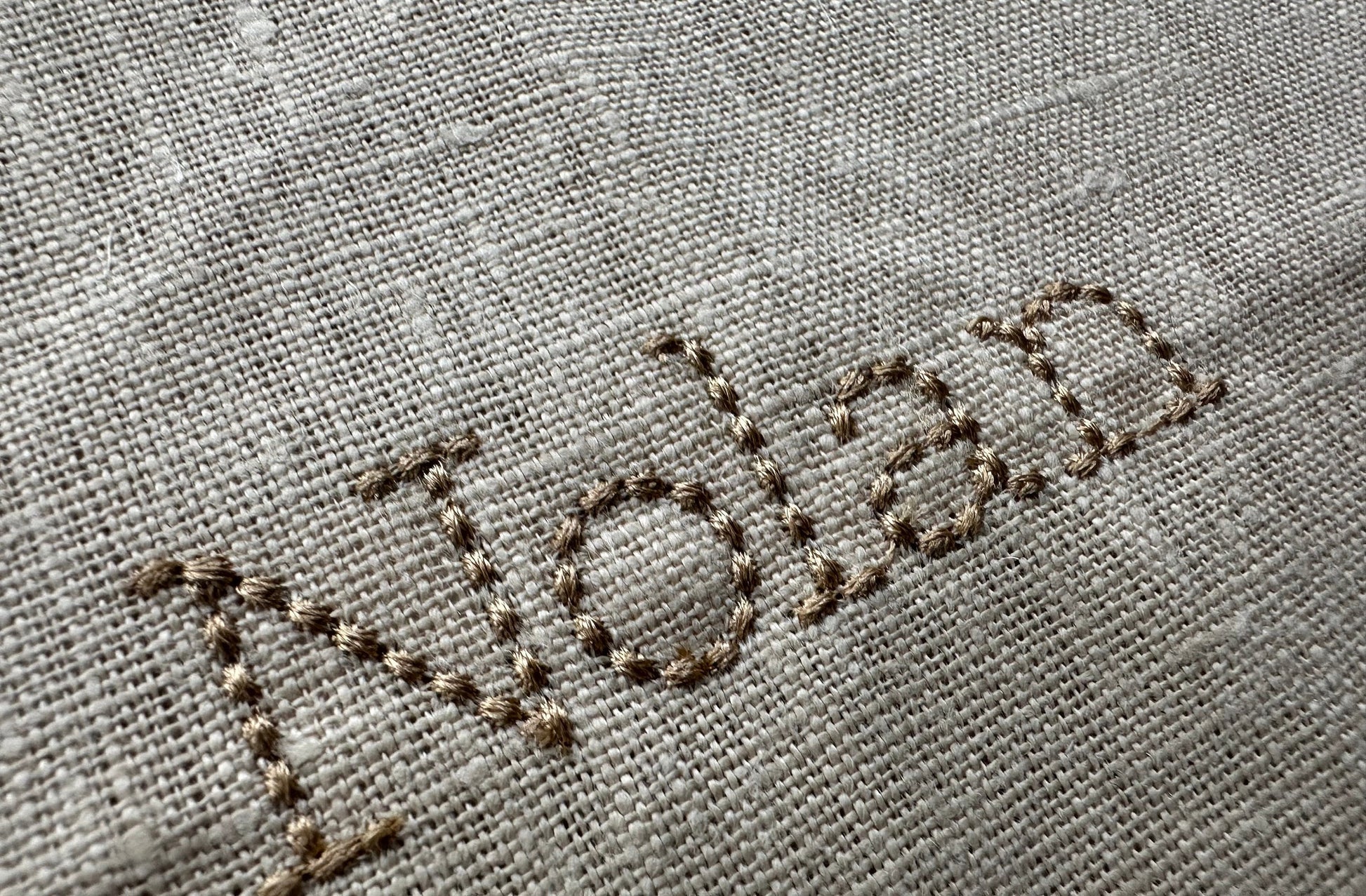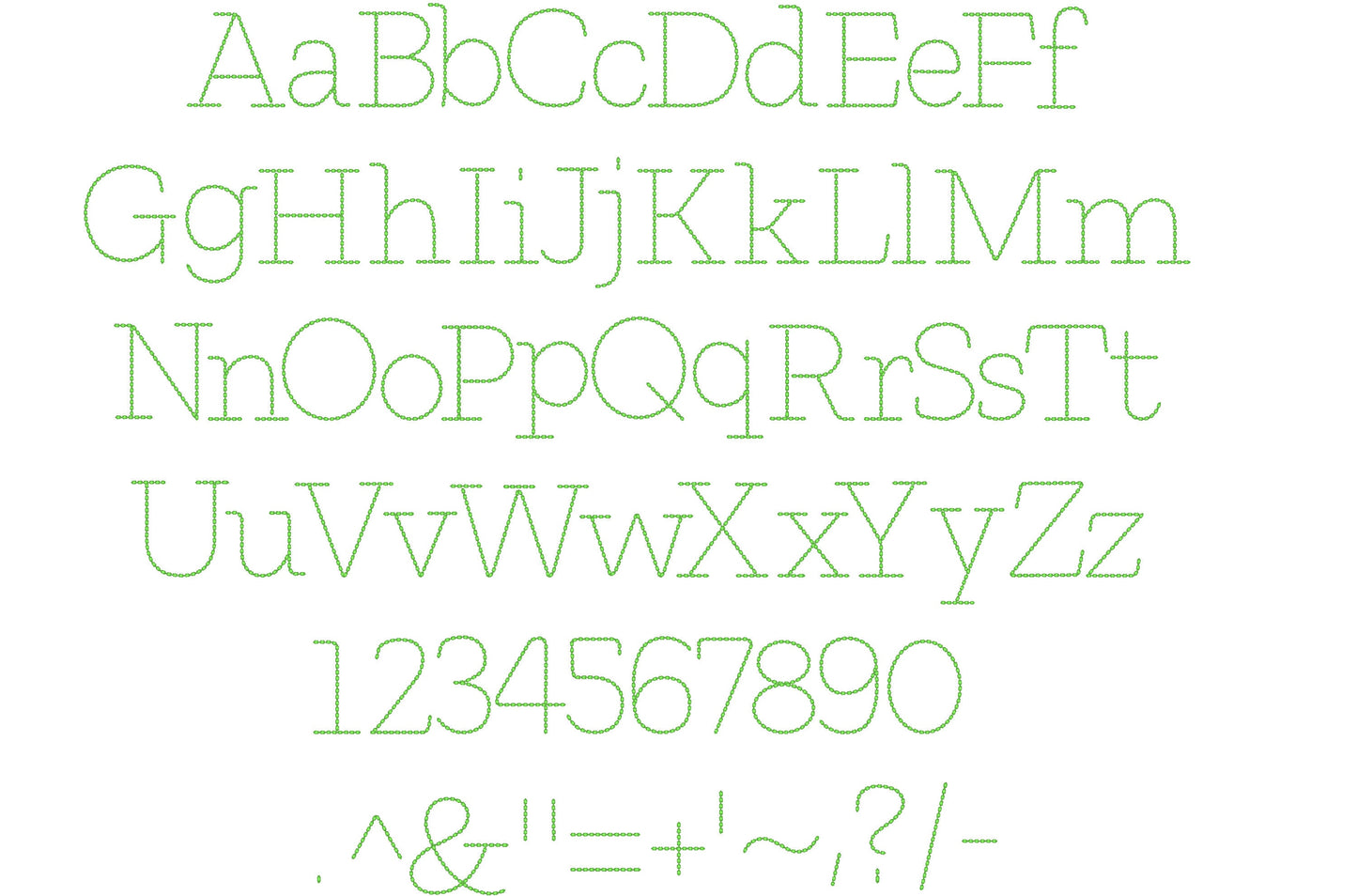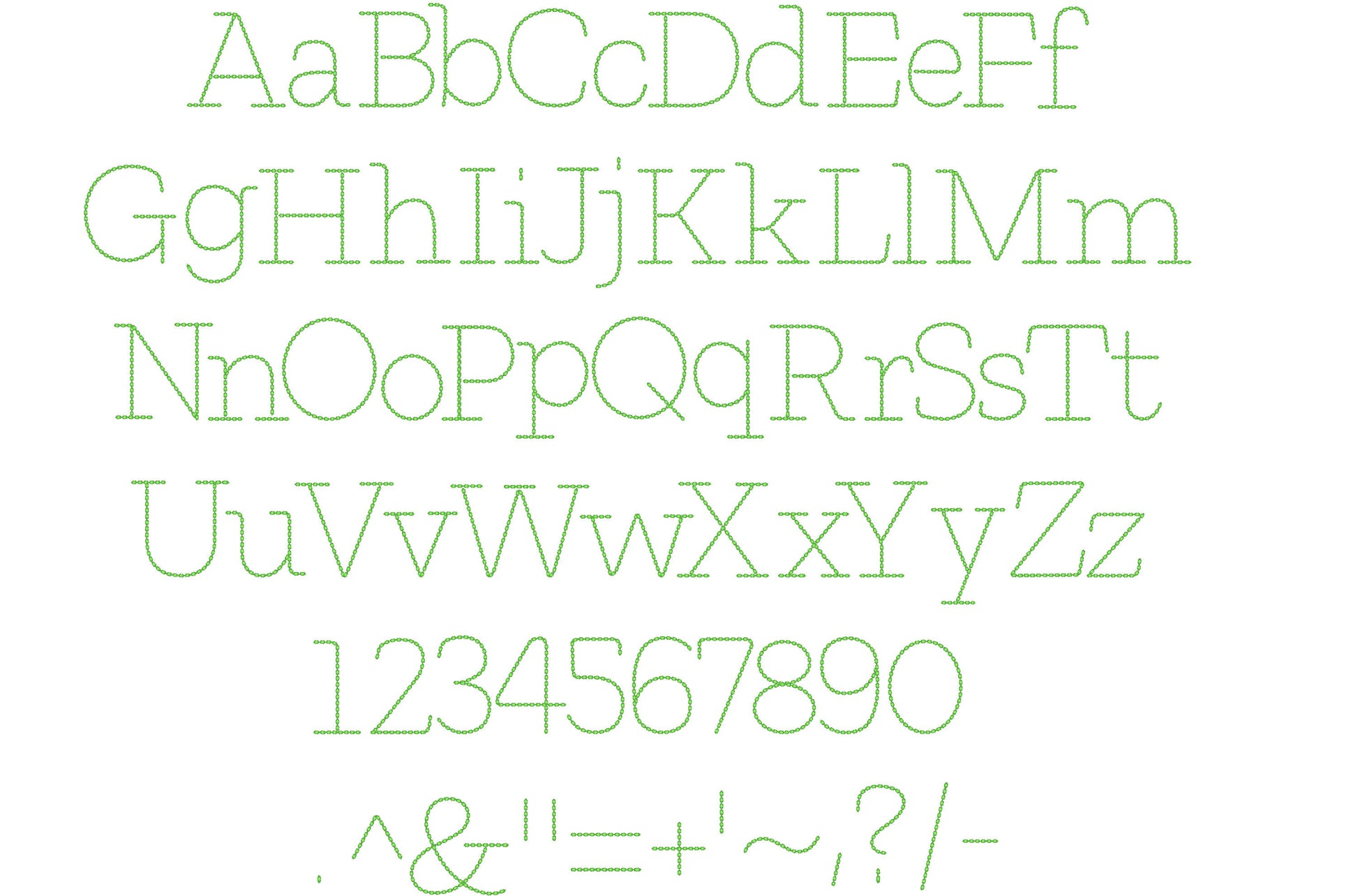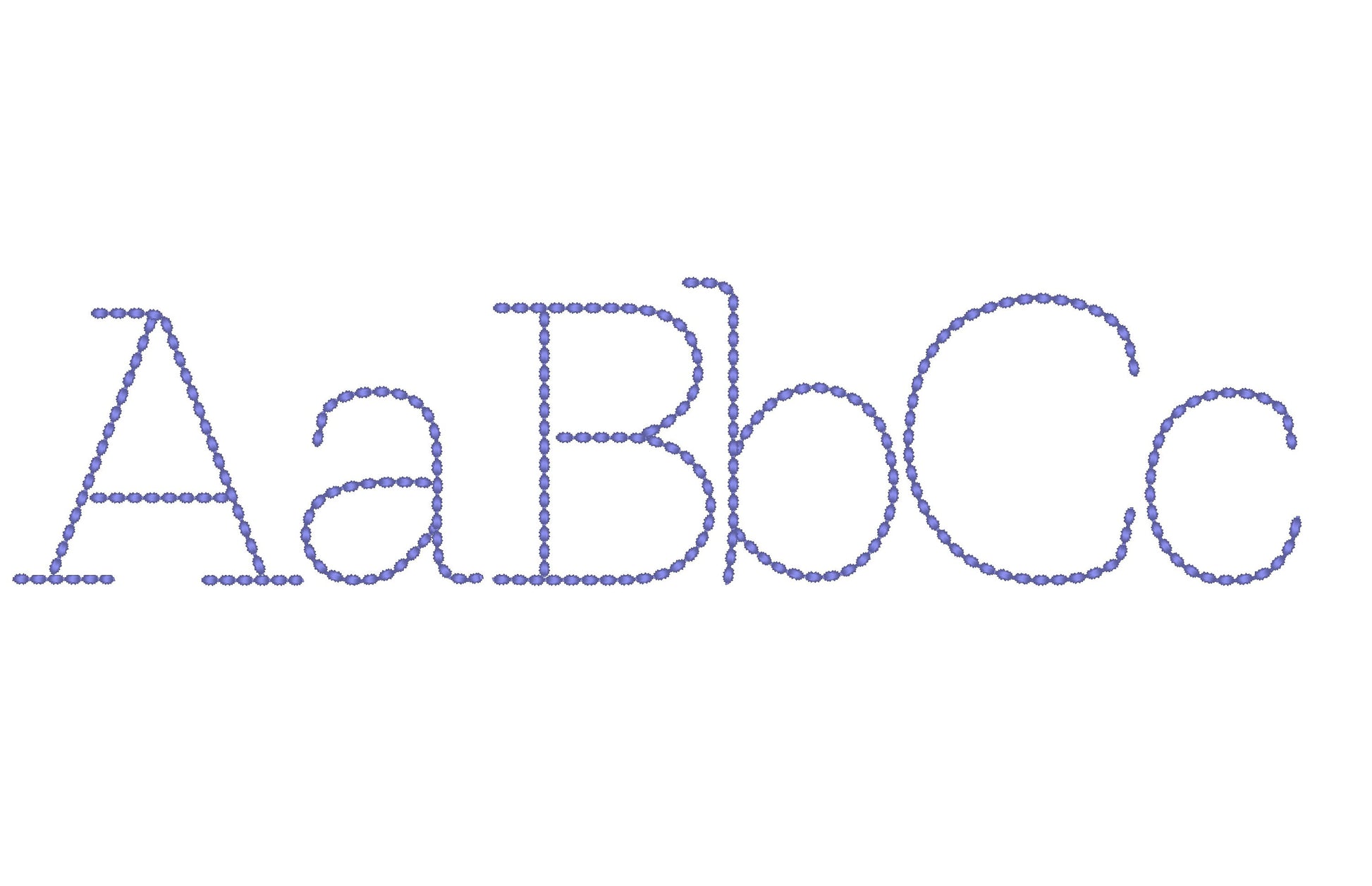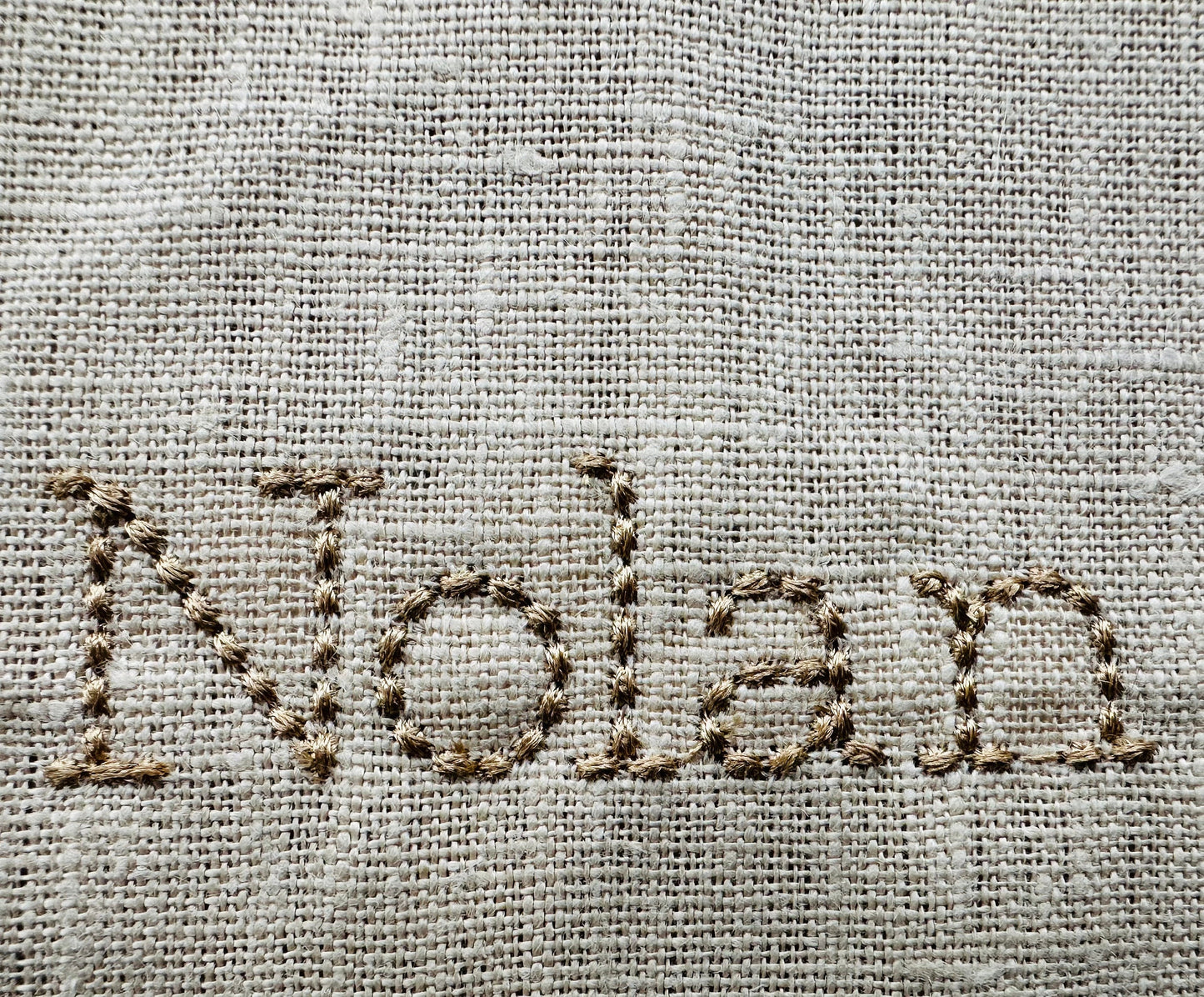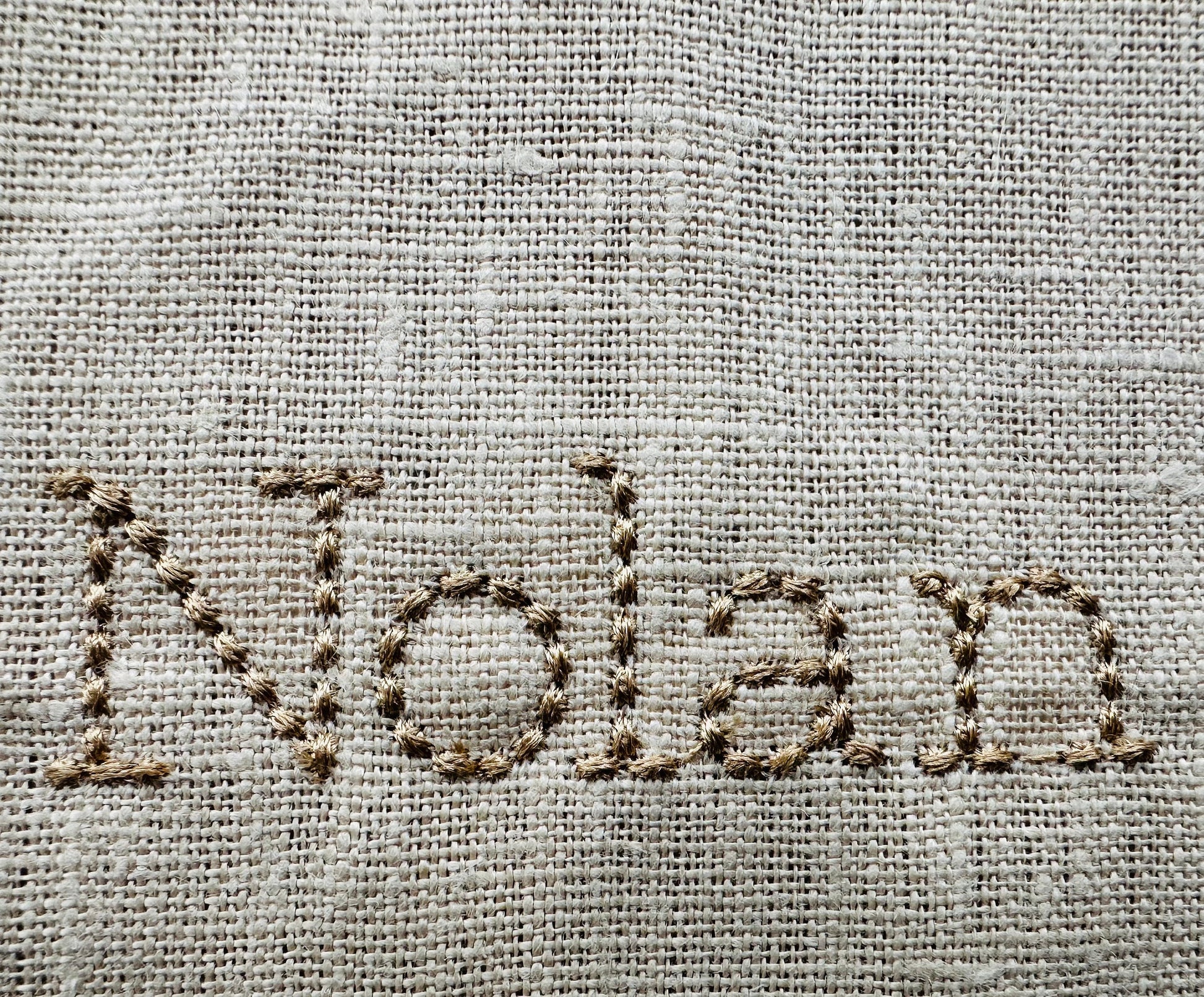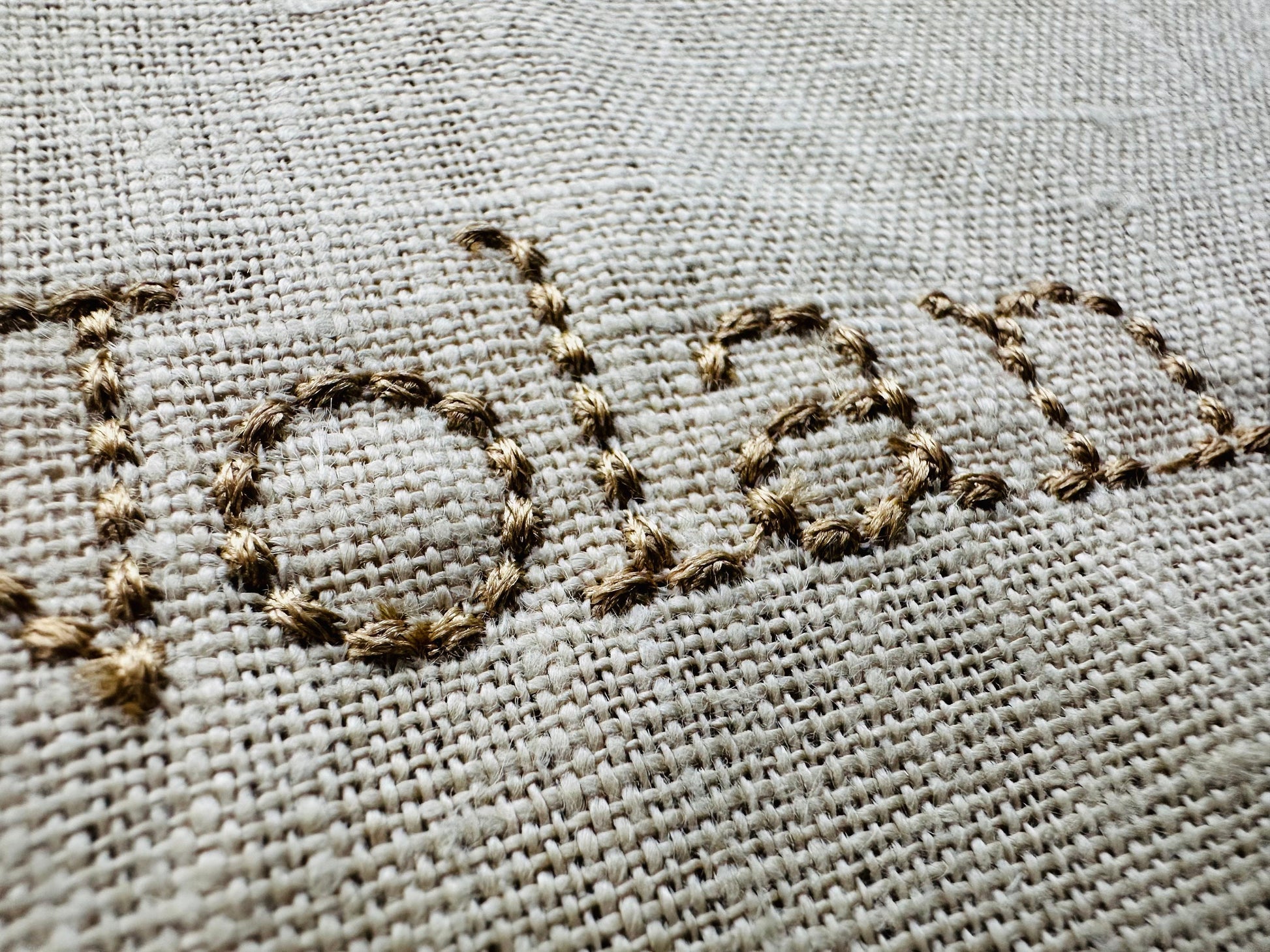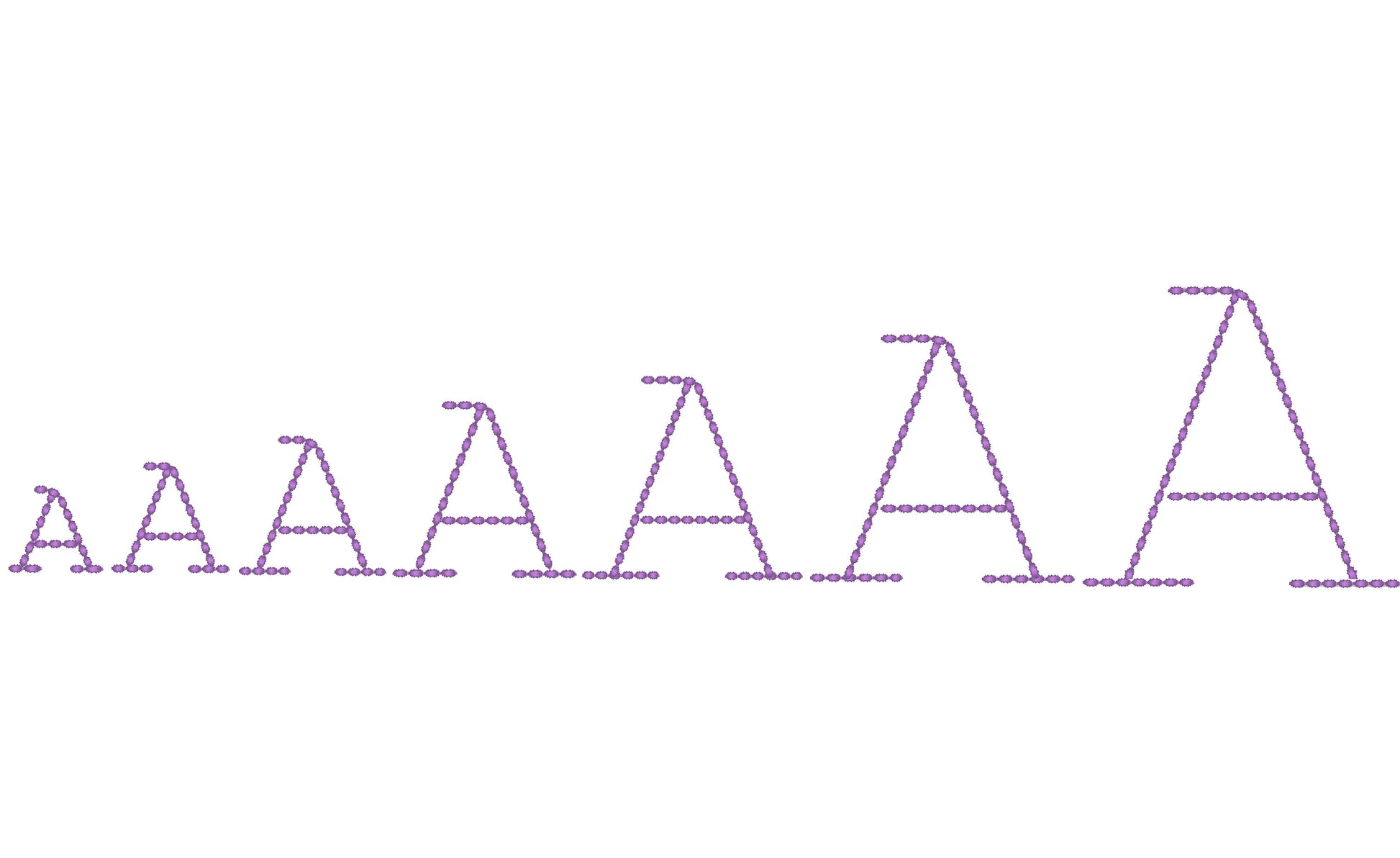
Hand Stitch Effect Font Nolan
Included: Uppercase A-Z, Lowercase a-z, Numbers 0-9, Punctuation
A block font with a hand-stitched seed stitch look, in mini sizes. Made for kids' names, necklines, pockets and small gifts.
Uppercase and lowercase letters, numbers 0 to 9 and punctuation. Seven sizes: 0.8, 1, 1.3, 1.6, 2, 2.5 and 3 inches.
• Hand stitch effect block font
• Uppercase, lowercase, numbers 0 to 9, punctuation
• 7 sizes, 0.8 to 3 in